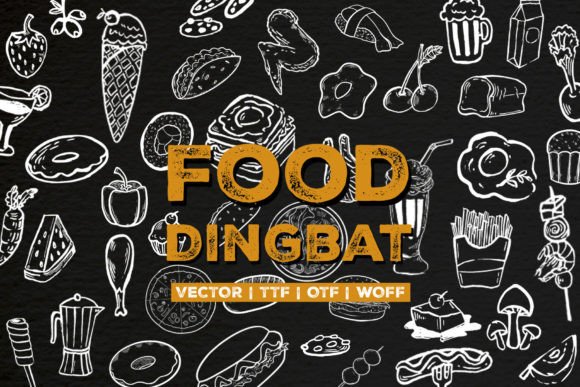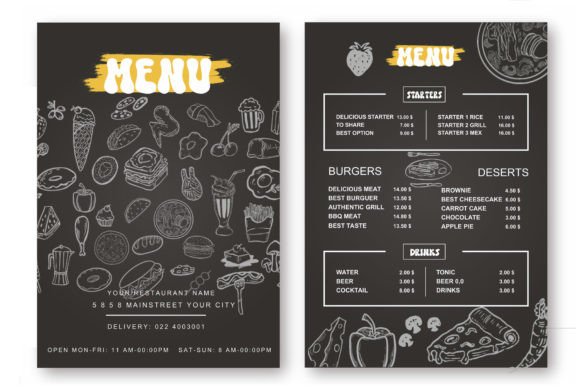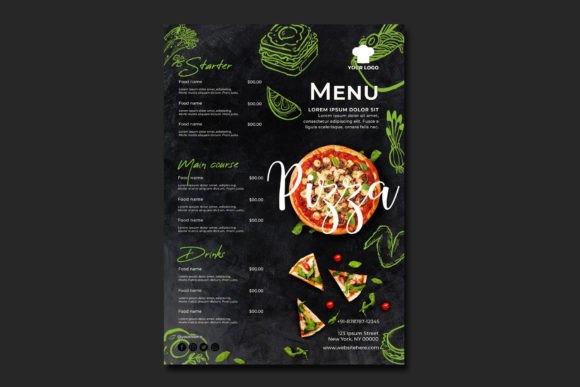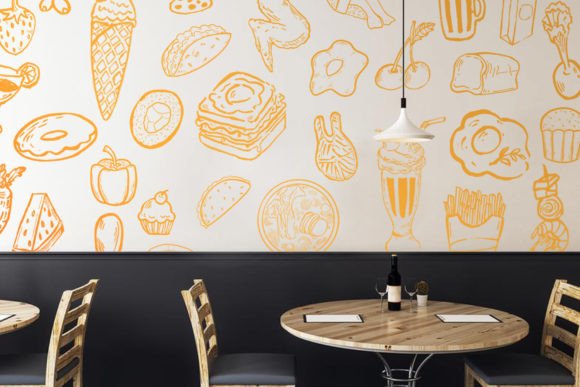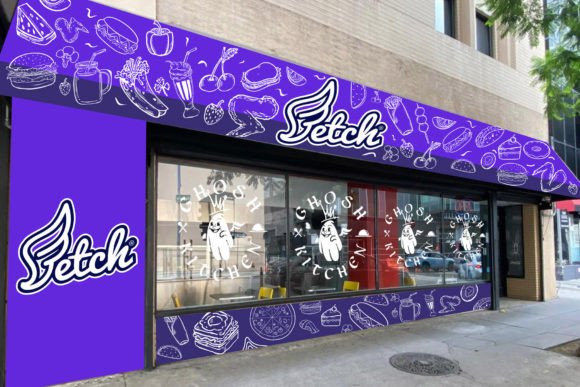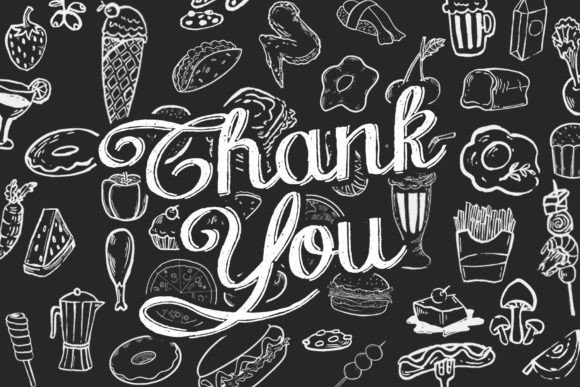
The Perfect Recipe for Your Design
Remember that moment when you’re brainstorming ideas for a new project and everything clicks into place? The creative juices start flowing, and you can’t wait to bring your vision to life. For designers, this feeling is what drives us to keep pushing the boundaries of what’s possible. And that’s where the right tools come in – like the Food Dingbat Font, a delicate line art illustration font that’s sure to elevate your creations.
This charming font is designed to add a touch of whimsy and personality to your designs, making it a valuable asset for any font library. With its unique food-themed clipart, you’ll be able to take your projects from bland to grand, whether you’re working on a cookbook, a food blog, or a marketing campaign.
Whether you’re a seasoned pro or just starting out, the Food Dingbat Font is sure to become your go-to companion for all your design needs. So, let’s dive in and explore the world of possibilities that this fantastic font has to offer!
Key Features of Food Dingbat Font
- Unique Characteristics: The Food Dingbat Font features a unique and playful design, with illustrations of various food items, such as fruits, vegetables, and baked goods. Each character is carefully crafted to be both recognizable and stylish.
- Character Set: The font includes a wide range of characters, including uppercase and lowercase letters, numbers, punctuation marks, and a variety of food-themed dingbats and icons.
- Font Weight: The Food Dingbat Font comes in a single weight, but its playful design makes it suitable for use in various contexts, from casual to formal.
Food Dingbat Font Review
Overall, I was excited to dive into the “Food Dingbat Font” and see what it had to offer. While it’s not without its quirks, I appreciate the effort put into creating a font that’s all about food. ✨ I love the playful, whimsical vibe it brings to any design project.
The font includes a wide range of food-related dingbats, from fruits and vegetables to baked goods and even food utensils. ✨ The variety is impressive, making it easy to find the perfect icon for your design. The font also includes some fun, unique characters like donuts and ice cream cones that add a touch of personality to your work.
Unfortunately, the font has some limitations that hold it back from being a top choice for designers. ⚠️ The dingbats are not scalable, which means they can become pixelated or distorted if you try to enlarge them. Additionally, the font is not optimized for digital use, which can lead to blurry or fuzzy text in certain situations.
- Limited scalability of dingbats
- Not optimized for digital use
Despite these limitations, I still think the “Food Dingbat Font” is a fun and creative addition to any designer’s toolkit. It’s perfect for projects that require a playful touch or for designers who want to add a bit of whimsy to their work.
Use the Food Dingbat Font to add a playful touch to your designs, such as:
- Food labels and packaging
- Cookbook and recipe designs
- Food-related advertising and marketing materials
The Food Dingbat Font is perfect for:
- Food bloggers and influencers
- Cooking schools and restaurants
- Food-related businesses and brands